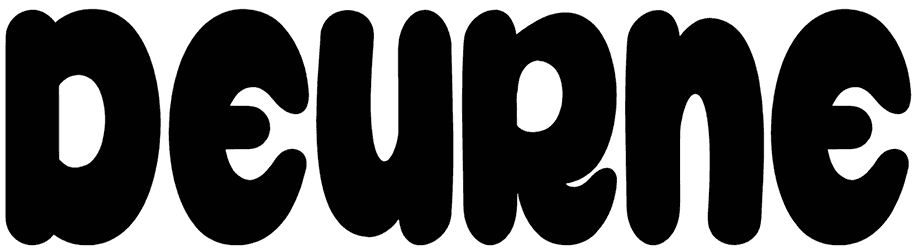
Super Bright Font
Wherever the bold letters of Super Bright arrive, they are bound to bring tons of attention along with them to your design. So you’ll be lucky to have this fancy font in your text.
It’s just odd that some of the numbers are randomly supported by this thick font, but not the rest. Other than that, this is exactly how you can make things sound more fun in your music cover, club posters, and supermarket signs. You get the idea!
Super Bright: A Boldly Classic Display Font
Super Bright is more than just a name – it’s a statement. This display font brings a touch of timeless boldness to your designs. Inspired by classic styles, Super Bright boasts thick, confident letterforms that guarantee to grab attention.